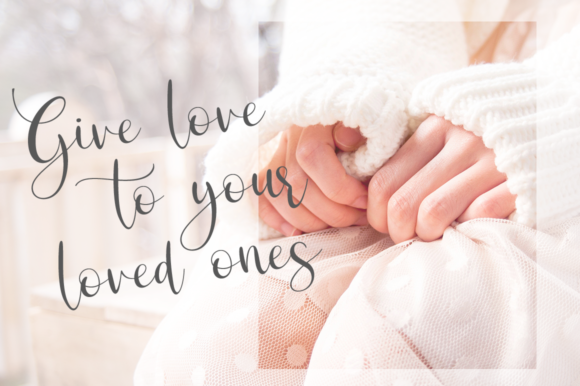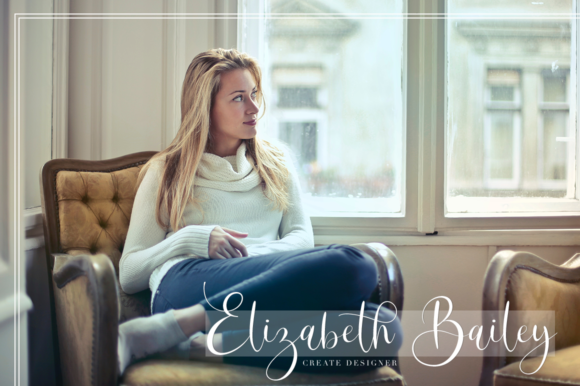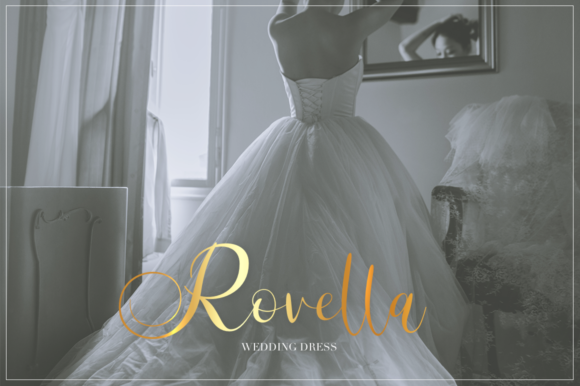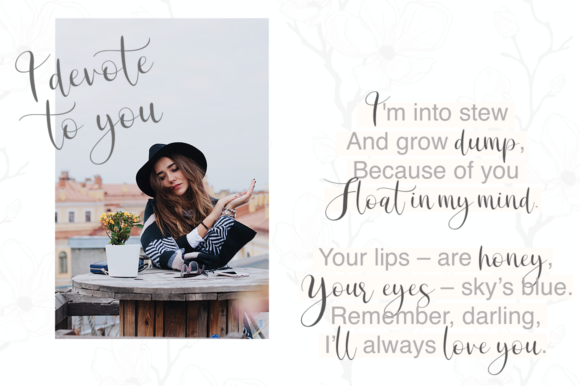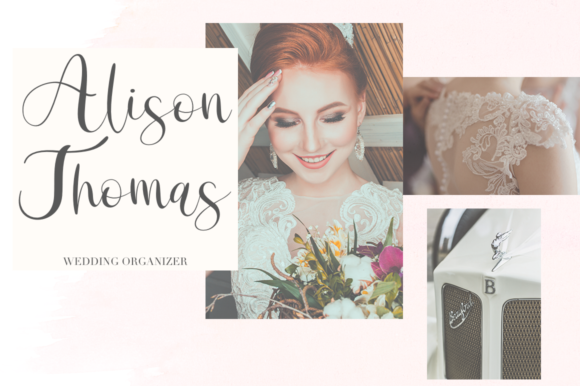
Highest Font
About Highest Font
The Highest is a handwritten typeface. It has an elegant and feminine look and is ideal for branding and decorating you projects.